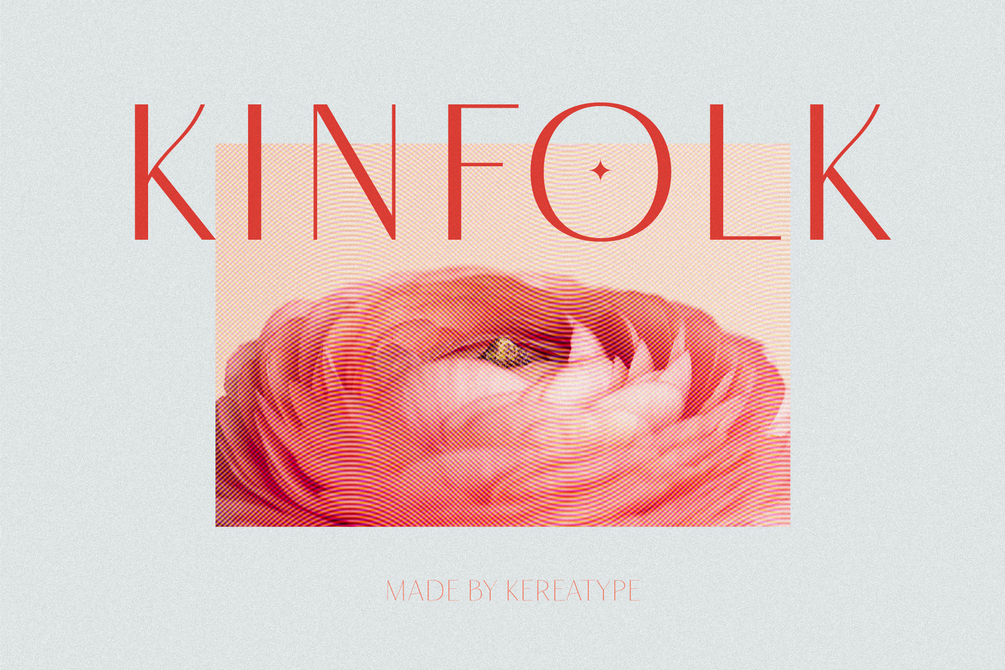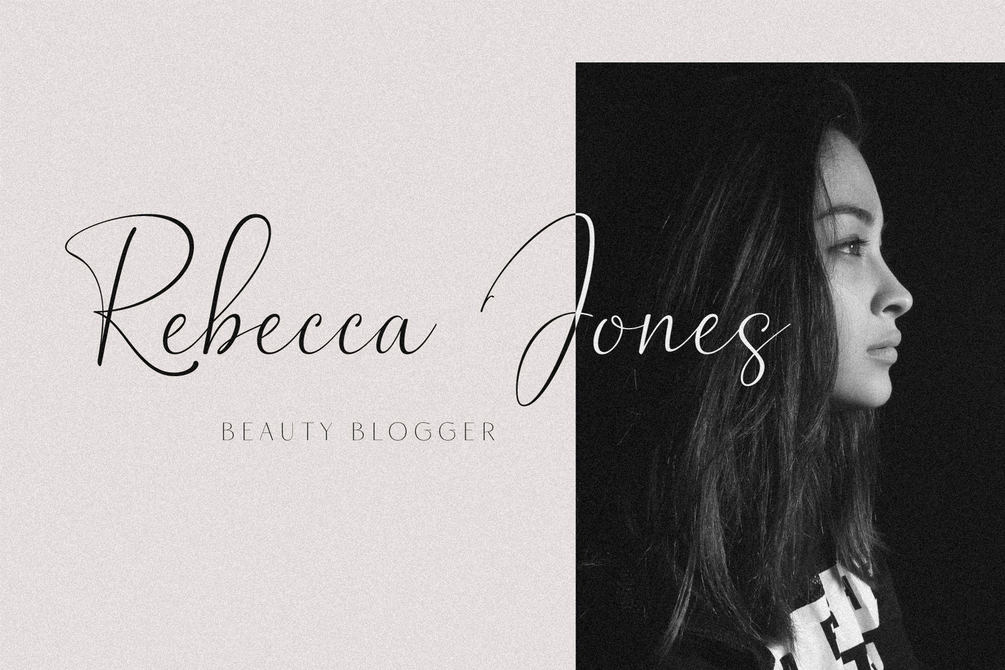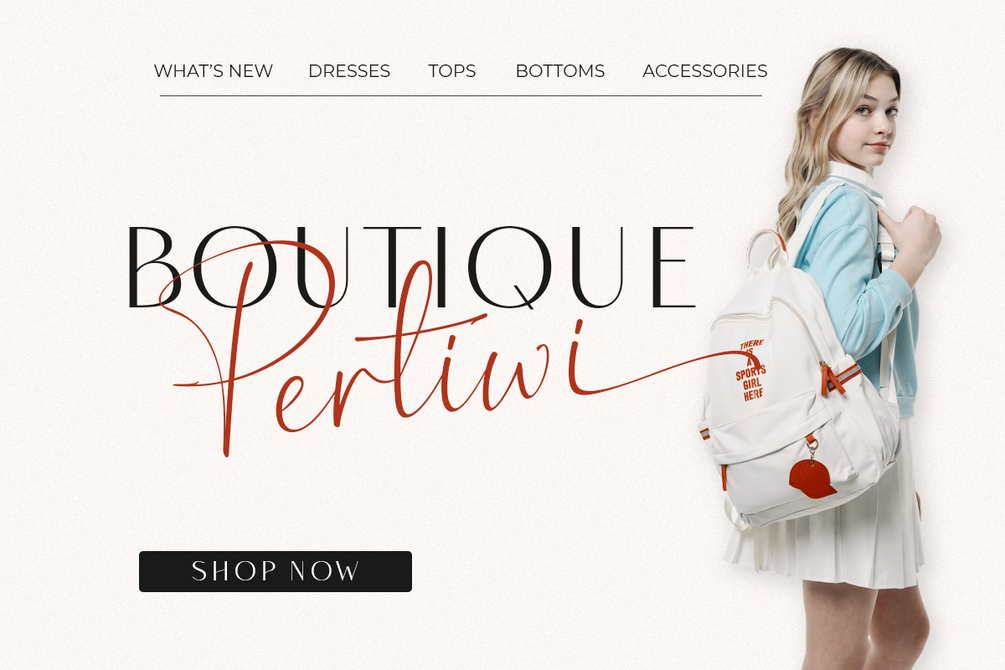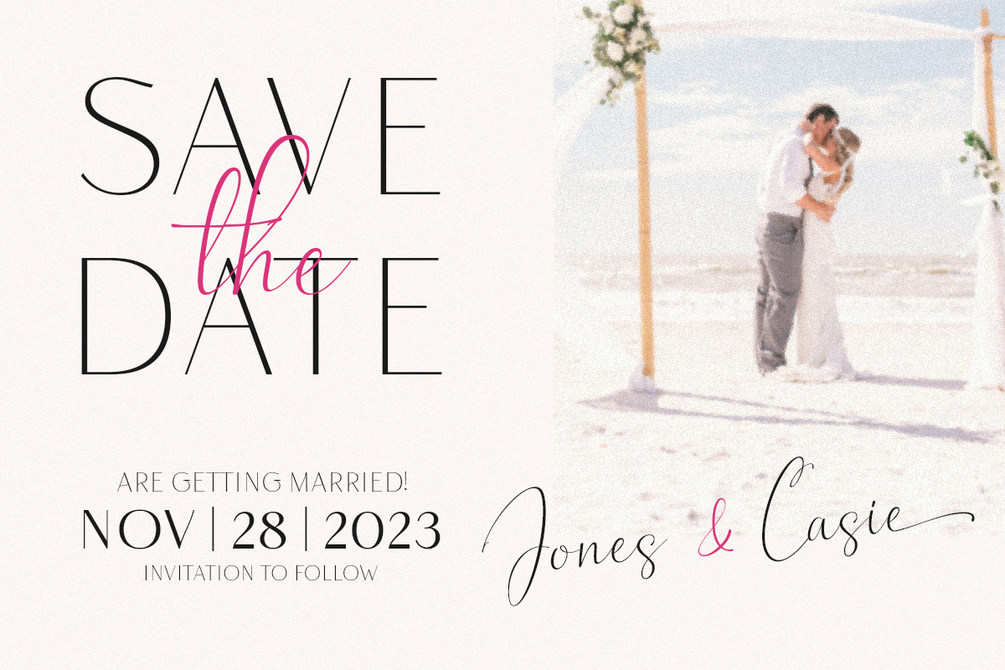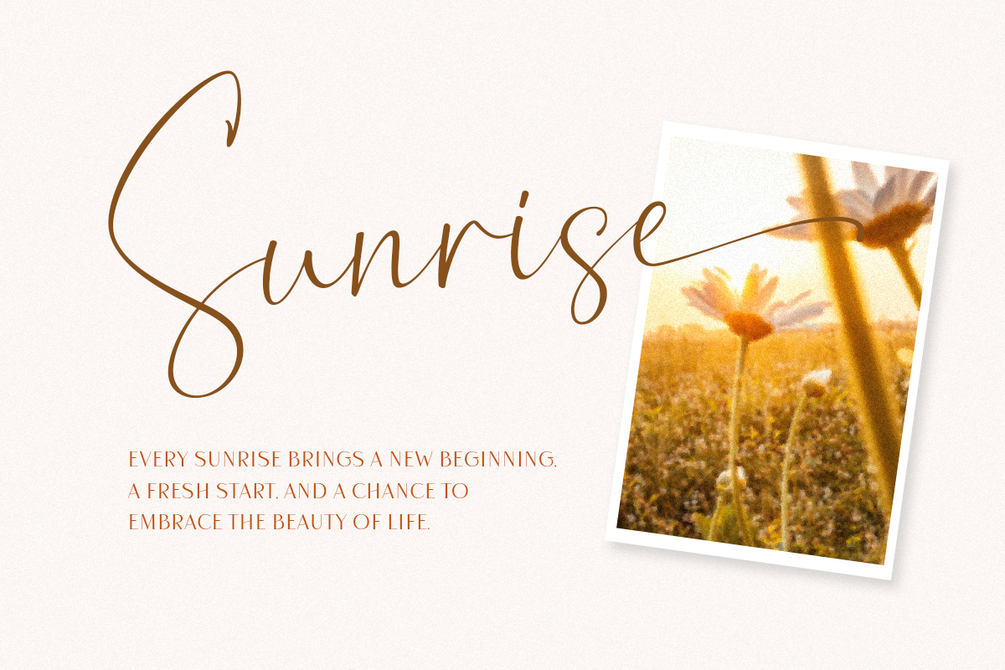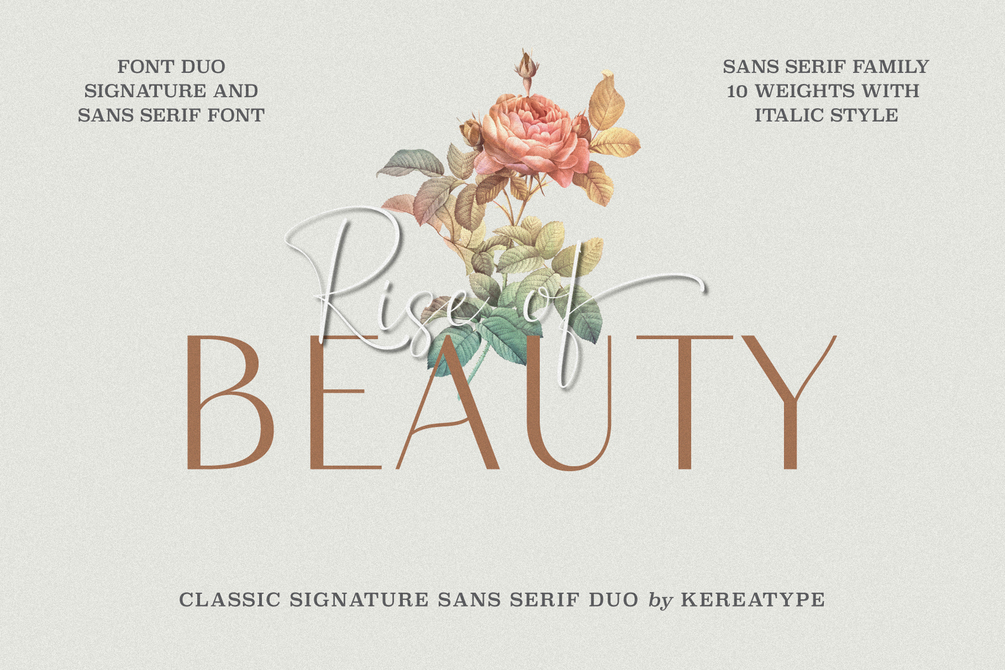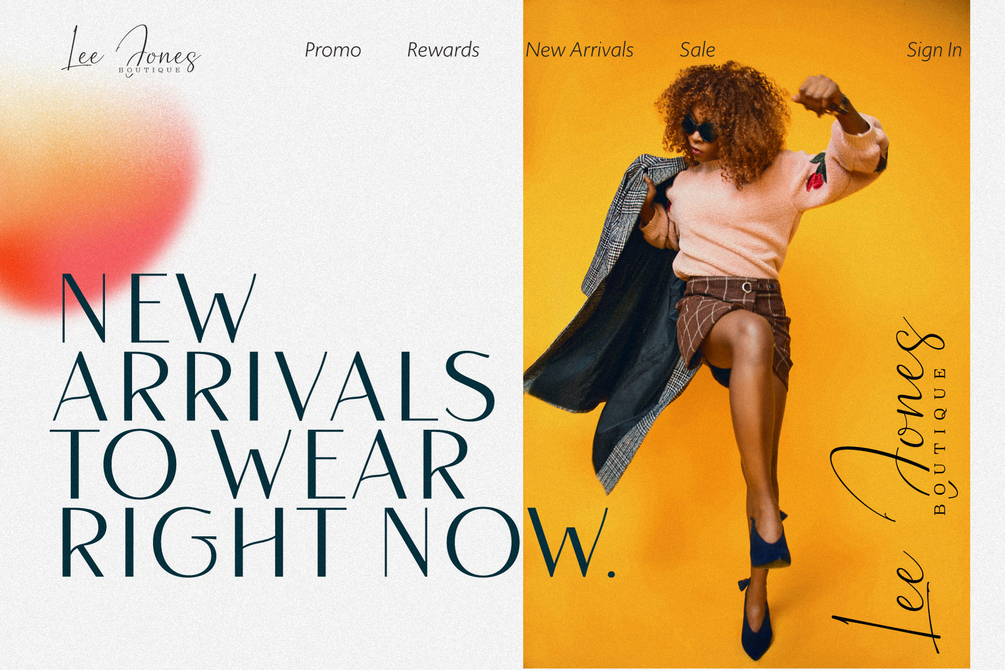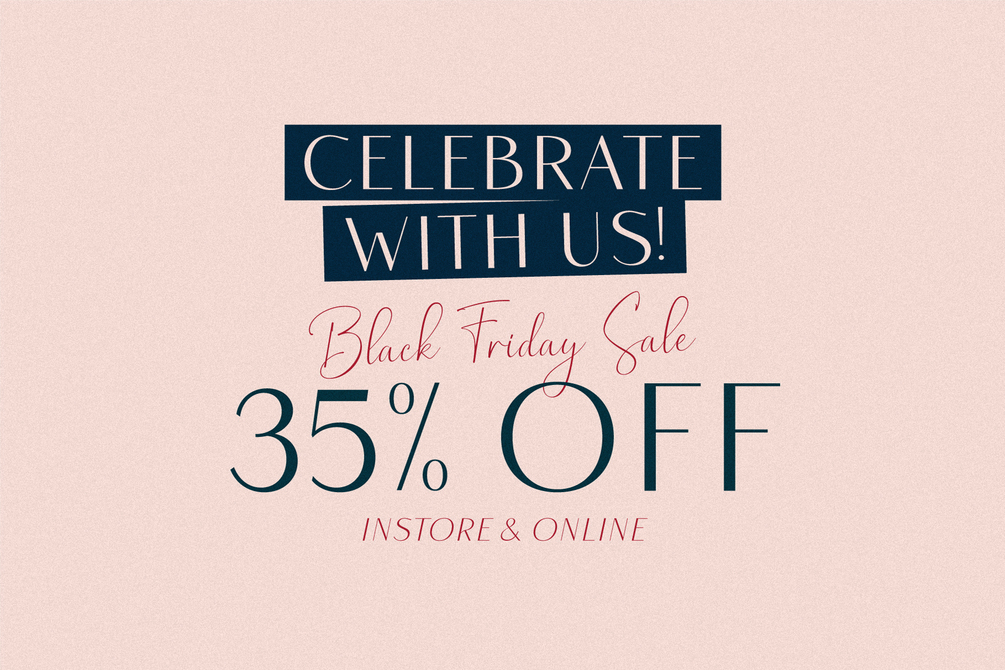
Rise of Beauty Font Duo
Rise of Beauty - Modern Variable Paired Duo
A classy, contemporary pair of Script Signature and Sans Serif fonts. With a stylish expressive script companion, Rise of Beauty offers beautiful typographic harmony for a diversity of design projects, including logos & branding, wedding designs, social media posts, advertisements & product designs.
Features:
• 2 Font; Sans Serif & Script
• Upper Case & Lowercase
• Stylistic Alternates
• Standard & Discretionary Ligatures